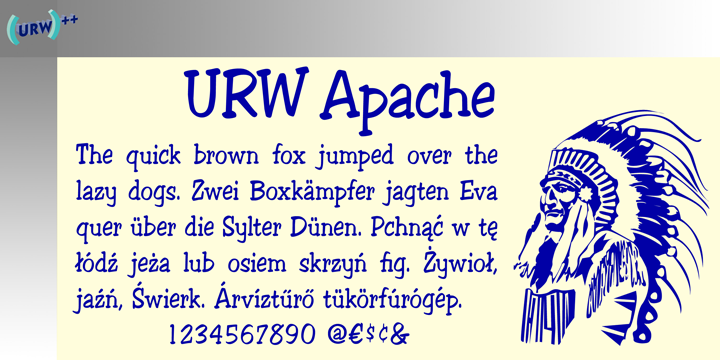
Apache Font is a bold and distinctive typeface, perfect for designs that aim to convey a sense of rugged authenticity, an adventurous spirit, or a connection to indigenous heritage and the American West. Its often strong, stylized forms, reminiscent of traditional artistry or frontier aesthetics, make it an excellent choice for outdoor adventure brands, Western-themed entertainment posters, indigenous cultural events, and rustic product packaging. Imagine it gracing the label of a craft beer brewery, adding a powerful edge to music festival branding with a folk or country vibe, or providing an authentic feel to historical society exhibits. This font is also superb for travel advertisements promoting rugged landscapes, documentary film titles, and any project where a sense of strength, tradition, and an earthy visual identity are key. It doesn't just display text; it tells a story of enduring spirit and wild frontiers.
What makes Apache Font so exciting is its immediate ability to evoke a powerful sense of place and cultural resonance. It possesses a distinctive character that feels both robust and artistic, drawing inspiration from rich historical narratives and natural environments. This unique personality makes it a fantastic choice for designers looking to infuse their projects with a sense of adventure, heritage, and an unforgettable visual impact. It’s a font that speaks with a strong, grounded voice, making it ideal for brands and content creators who want to convey resilience, authenticity, and a compelling, evocative aesthetic. Its commanding appeal can make any message feel more significant and deeply rooted.
The Apache Font family, given its often artistic and specialized design, might not feature the extensive weight variations seen in more traditional typefaces. However, it typically offers different styles or complementary elements that enhance its unique aesthetic and provide creative flexibility. You might find variations such as:
• Apache Regular (the primary style embodying the core aesthetic)
• Apache Bold (for added emphasis while maintaining the character)
• Apache Distressed (if designed with a weathered or aged appearance)
• Apache Outline (for a different visual effect)
• Apache Pictograms/Ornaments (often included with symbols inspired by indigenous art)
These variations empower designers to maintain a consistent thematic aesthetic while adding depth and visual punch to their compositions. The availability of Apache Font Free Download offers an excellent opportunity to explore its unique blend of cultural richness and adventurous spirit for your personal design ventures.